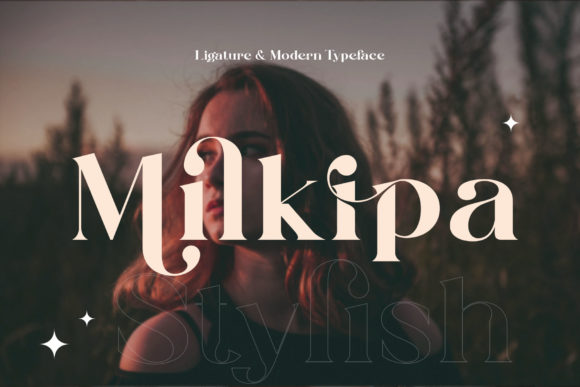
Journey into the world of captivating typography with Milkipack Stylish Font, a serif masterpiece crafted by Graphicxell. Let your designs radiate elegance and sophistication with this modern and exquisite font. Its unique character echoes the charm of classic serif fonts while adding a touch of contemporary flair.
Imagine your designs adorned with the beauty of Milkipack Stylish. Its clean lines and flowing curves seamlessly adapt to any project, adding an instant touch of refinement. Whether you're creating eye-catching templates, designing captivating brochures, or producing engaging videos, Milkipack Stylish will elevate your work to new heights.
Dive into the versatility of Milkipack Stylish and discover its limitless possibilities. From bold headlines that command attention to elegant body text that invites readers to delve deeper, this font seamlessly adapts to any design challenge. Its inherent readability ensures that your messages are conveyed with clarity and impact, leaving a lasting impression on your audience.
Unleash the cinematic allure of Milkipack Stylish and transform your creative projects into moving masterpieces. Its delicate serifs and graceful curves exude an air of sophistication, perfectly complementing movie captions and titles. Immerse your viewers in the narrative, allowing them to connect with the characters and story on a deeper level.
Embrace the allure of Milkipack Stylish and experience the power of captivating typography. Its versatility, elegance, and cinematic flair will transform your designs into stunning works of art. Let Milkipack Stylish become your creative companion, guiding you towards design excellence.